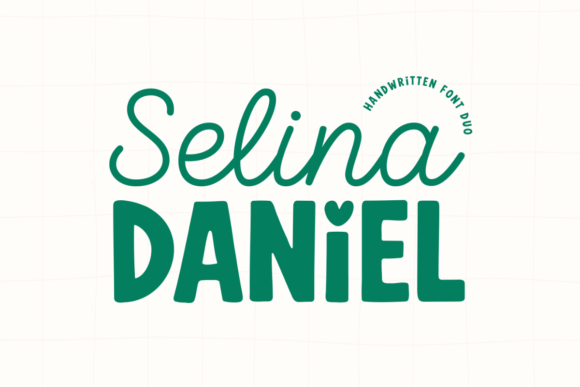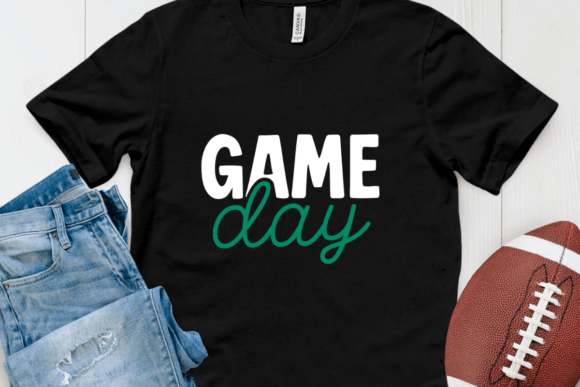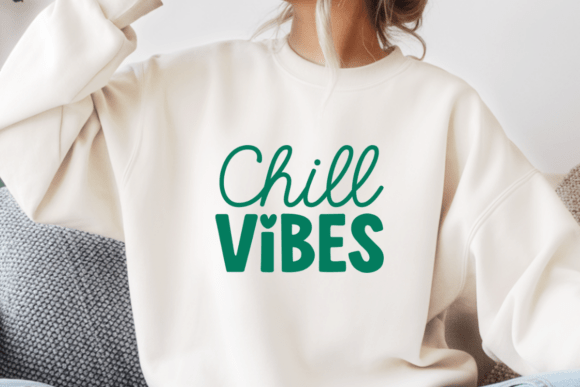
Selina Daniel Duo Font Font
Discover the creative power of contrast with Selina Daniel Duo Font, a versatile handwritten font duo that skillfully pairs an elegant, flowing script with a cute, chunky sans-serif, offering two complementary aesthetics in one package.
The ‘Selina’ script is light, spontaneous, and romantic, while the ‘Daniel’ sans-serif is thick, playful, and grounded, featuring a unique heart-shaped dot over the ‘i’ that adds an extra touch of charm. Both styles share a consistent, modern, hand-drawn feel.
This Font Duo is the perfect toolkit for branding that requires visual hierarchy and personality. The script is excellent for delicate signatures and main headings, while the sans-serif is ideal for bold subheadings and supporting text, creating instant, professional cohesion.
Use it for social media quotes and stories, boutique or craft branding, wedding logos and stationery, feminine product packaging, custom apparel, or any project needing a harmonious blend of elegant, light script and fun, bold print handwriting.